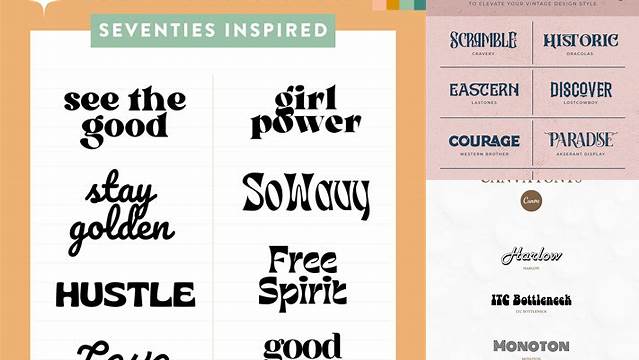
Vintage Fonts In Canva: A Retro Design Guide
Hey guys! If you're anything like me, you're probably obsessed with all things vintage. The nostalgia, the aesthetics, the feeling of stepping back in time – it's just chef's kiss. And what better way to capture that vibe than by incorporating vintage fonts into your Canva designs? Canva is an amazing platform, super user-friendly, and packed with design possibilities. Today, we're diving deep into the world of vintage fonts in Canva, exploring how you can find them, use them, and create some seriously retro-cool designs. So, buckle up, grab your favorite vintage soda (or coffee – no judgment!), and let's get started!
1. Understanding Vintage Fonts: What Makes a Font "Vintage"?
So, before we jump into Canva, let's get a handle on what exactly defines a vintage font. It's not just about looking old; there's a whole philosophy behind it. Vintage fonts often draw inspiration from specific eras, like the roaring twenties, the groovy sixties, or the rock and roll seventies. Think about the fonts you see on old movie posters, classic advertisements, or even the labels on your grandparents' favorite products. These fonts are often characterized by distinctive features like serifs (the small decorative strokes at the end of letters), unique letterforms, and a general feel that evokes a sense of nostalgia. The key is authenticity. A truly vintage font often reflects the design sensibilities and technological limitations of its time. It might have imperfections, quirks, or a hand-drawn quality that sets it apart from the clean, modern fonts we see everywhere today. It's about capturing a specific mood, a feeling, a historical period. The style of the font also tells a story, it gives off a certain emotion, it speaks without saying words. The vintage fonts can also be combined with specific colors, graphic elements, and imagery to create a cohesive design. The best vintage fonts not only look good, but they also transport the audience back in time. Different eras call for different kinds of fonts, so you need to understand them well to properly use them in your designs. Experiment with different font styles to see which one fits your design the best.
2. Key Characteristics of Popular Vintage Font Styles
When you’re looking at vintage fonts, you'll notice a few key characteristics that define different styles. For example, fonts from the Art Deco era (1920s-1930s) often feature bold, geometric shapes, clean lines, and a sense of luxury. Think of the iconic Chrysler Building or the stylish posters of the time. The fonts used in these designs often have strong serifs or a sleek, streamlined appearance. Then you have the fonts from the mid-century modern era (1940s-1960s), which often have a more playful and optimistic feel. These fonts might be rounded, with a touch of whimsy, reflecting the post-war boom and the rise of advertising. Fonts used in this era are often seen as friendly and approachable, and are also incredibly versatile. Finally, we have fonts from the 1970s and 1980s, which often embrace bolder, more experimental styles. These fonts might have thick strokes, groovy curves, or a distinct retro feel, reflecting the music, fashion, and overall vibe of the time. These can also be used in combination with bright colors to create a sense of nostalgia. Understanding these different styles will help you choose the right vintage font for your project, ensuring that your design truly captures the essence of the era you're trying to represent. The selection of a font also depends on the message you want to convey and the design you want to create.
3. Identifying Reliable Sources for Vintage Fonts
Finding reliable sources for vintage fonts is the first step in your retro design journey. Luckily, the internet is full of options, but it’s important to choose wisely to avoid any legal issues or quality concerns. One of the best places to start is Google Fonts. While not all fonts on Google Fonts are explicitly vintage, there are several that fit the bill. Plus, they're free and easy to use in Canva! Another great option is Adobe Fonts. If you have an Adobe Creative Cloud subscription, you have access to a vast library of fonts, including many that have a vintage aesthetic. You can browse through the collection, filter by style (like “retro” or “serif”), and find the perfect font for your needs. Beyond these two options, you can also explore dedicated font websites like DaFont, Font Squirrel, and Creative Market. These sites offer a wide variety of fonts, including both free and premium options. When choosing a font from these sites, be sure to check the license. Some fonts are free for personal use but require a commercial license if you plan to use them for professional projects. Always read the fine print to avoid any copyright issues. Another way to ensure reliability is by choosing fonts from established foundries, or companies that specialize in creating and selling fonts. These foundries often have a reputation for quality and attention to detail. Do your research, explore different options, and always verify the license before incorporating a font into your design. Doing so will ensure that you're using the font legally and giving the proper credit to the designer.
4. Finding Vintage Fonts Within Canva Itself
Now, let's get to the good stuff: how to find vintage fonts directly within Canva! Canva has a fantastic selection of fonts, and while they don’t explicitly label them as